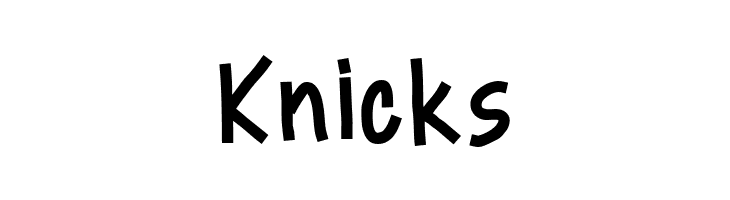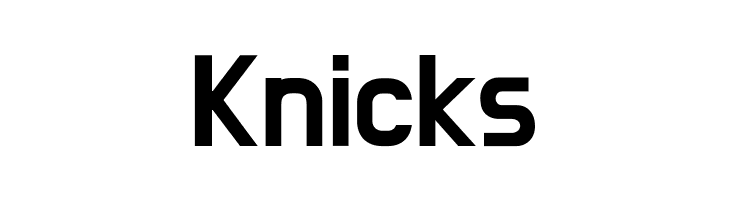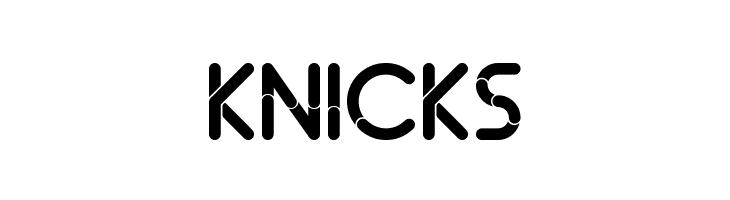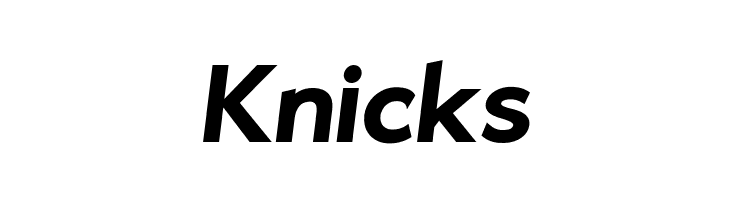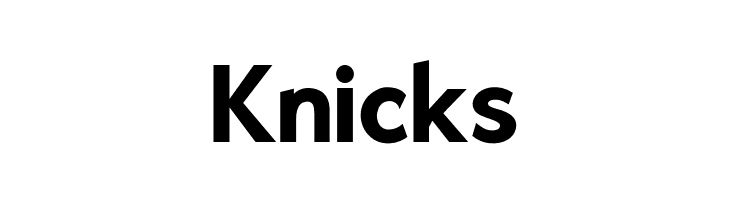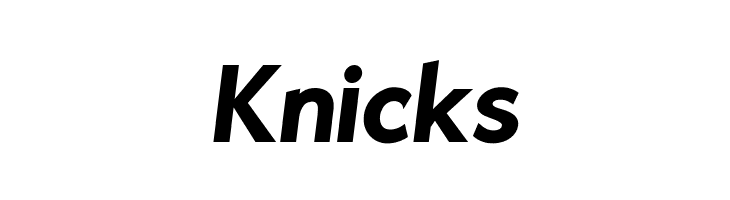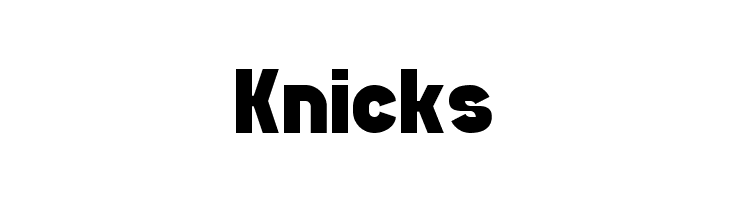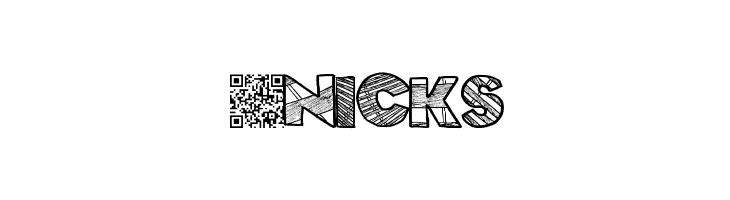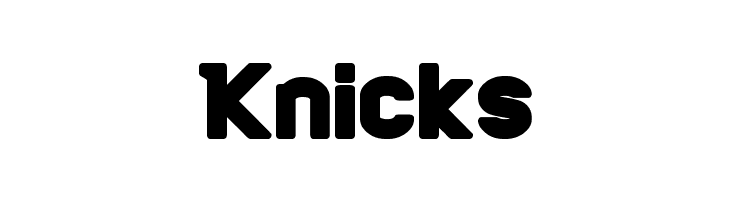
( Fonts by GNU )
A monospaced font with uniform character width and minimal stroke contrast, ideal for coding.
( Fonts by GNU )
A bold, monospaced font with uniform stroke width and rounded edges, ideal for technical use.
( Fonts by GNU )
A bold, oblique, monospaced font with a modern and clean design.
( Fonts by GNU )
A monospaced, oblique font with consistent stroke weight and clear readability.
( Fonts by Jovanny Lemonad )
A rugged, hand-drawn font with a distressed, artistic style.
A rugged, hand-drawn font with uneven strokes and a distressed appearance.
( Fonts by GNU )
A clean, modern sans-serif font with balanced proportions and excellent readability.
( Fonts by GNU )
A bold, modern sans-serif font with clean lines and uniform width.
( Fonts by GNU )
A bold, oblique font with a modern and dynamic style.
( Fonts by GNU )
A modern sans-serif font with an oblique slant and medium contrast.
( Fonts by GNU )
A classic serif typeface with elegant, traditional letterforms and moderate stroke contrast.
( Fonts by GNU )
A bold, classic serif font with strong, authoritative characters.
( Fonts by GNU )
A bold, italic serif font with a classic and elegant style.
( Fonts by GNU )
An elegant serif font with an italic slant, offering a classic and sophisticated look.
A playful, handwritten-style font with smooth, rounded strokes.
( Fonts by Xerographer Fonts )
A bold, graffiti-inspired font with sharp, jagged edges and dynamic strokes.
A whimsical, playful font with decorative curls and slender characters.
( Font-a-licious - www.fontalicious.com/ )
A bold, modern font with rounded characters and consistent stroke width.
A bold, futuristic font with a blocky, industrial design.
( Fonts by Xerographer Fonts )
A playful, outlined decorative font with a hand-drawn, whimsical style.
An elegant and flowing script font with a calligraphic style.
A whimsical and artistic font with fluid, hand-drawn letterforms.
A bold, energetic script font with a dynamic, handwritten style.
A bold, playful font with a hand-drawn, energetic style.
A bold, decorative font with a unique horizontal striped pattern.
A bold, high-contrast display font with sharp serifs and tight spacing.
( Fonts by Fabian Kirst )
A bold, angular Blackletter-inspired font with a strong, authoritative presence.
( Xerographer Fonts - Max Infeld - xerographer.blogspot.com )
A bold, jagged font with a distressed, hand-drawn appearance.